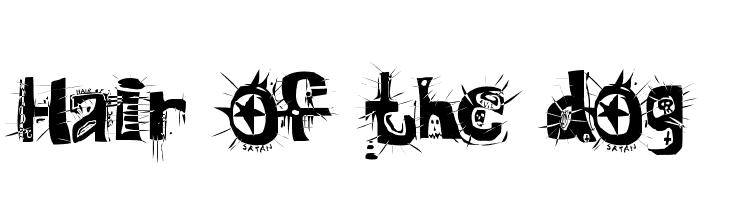
A bold, distressed font with a vintage, rugged texture.
A bold, glitch-style font with a digital, chaotic aesthetic.
A bold, angular Gothic-inspired font with sharp edges and dramatic strokes.
A bold, chaotic display font with a punk rock aesthetic and distressed look.
A serif font with a unique, dotted, half-faded texture.
A playful, bold font with a unique split design, perfect for creative projects.
A bold, textured font with a vintage halftone effect.
A playful, hand-drawn style font with rounded edges.